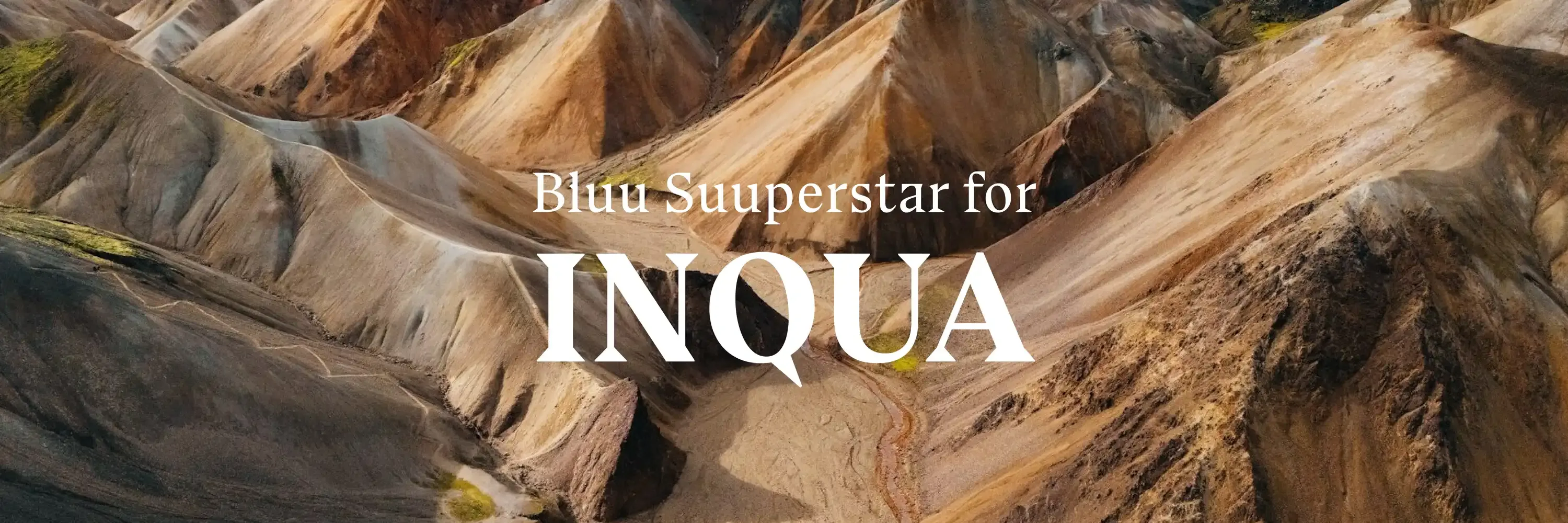
Bluu Suuperstar for INQUA
Introducing Bluu Suuperstar for INQUA
Inqua, the International Union for Quaternary Research, is a global organization at the forefront of Quaternary science—the study of Earth’s environmental changes over the past 2.6 million years. By fostering collaboration and innovation, Inqua bridges the past and present, addressing pressing global issues such as climate change, biodiversity loss, and human adaptation.
To visually represent this mission, Inqua selected the Bluu Suuperstar font. This bold, modern serif typeface is more than just a design choice—it’s a reflection of Inqua’s vision and scientific approach, balancing precision, exploration, and creativity.
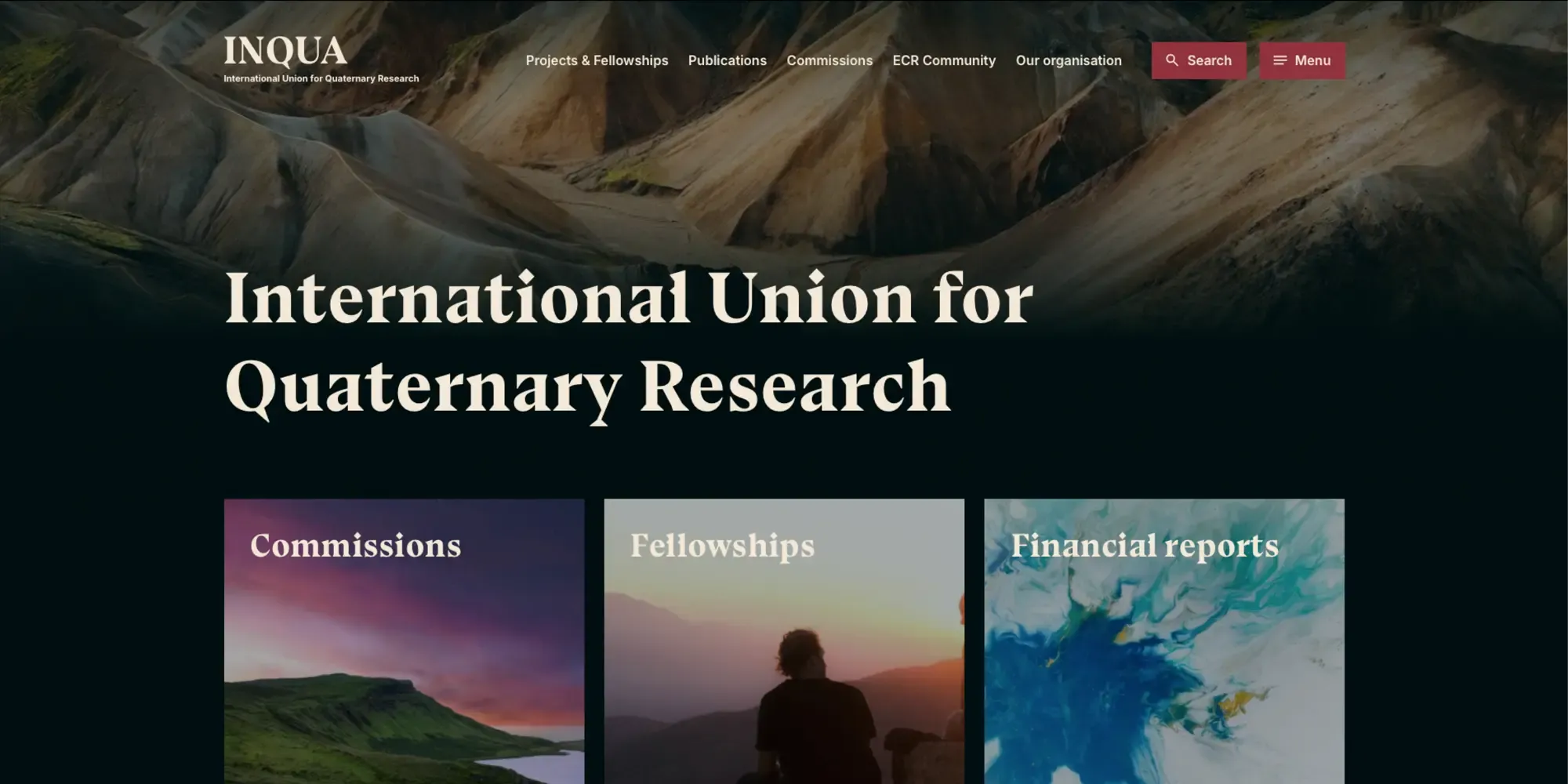
Why Bluu Suuperstar
• Scientific Precision: Bluu Suuperstar’s sharp, angular serifs and high contrast echo the precision required in scientific research. Just as Quaternary science meticulously analyzes layers of Earth’s history, the font’s structured forms convey a sense of accuracy and rigor.
• Dynamic Innovation: The typeface’s dramatic and unconventional details, such as its flared serifs and striking proportions, symbolize Inqua’s role as a trailblazer in science. Bluu Suuperstar communicates the idea of breaking boundaries while remaining grounded in expertise.
• Bridging Tradition and Modernity: With its roots in classical serif design but a distinctly contemporary twist, Bluu Suuperstar mirrors Inqua’s mission of connecting the past with the present. It reflects the organization’s ability to honor Earth’s history while innovating for the future.
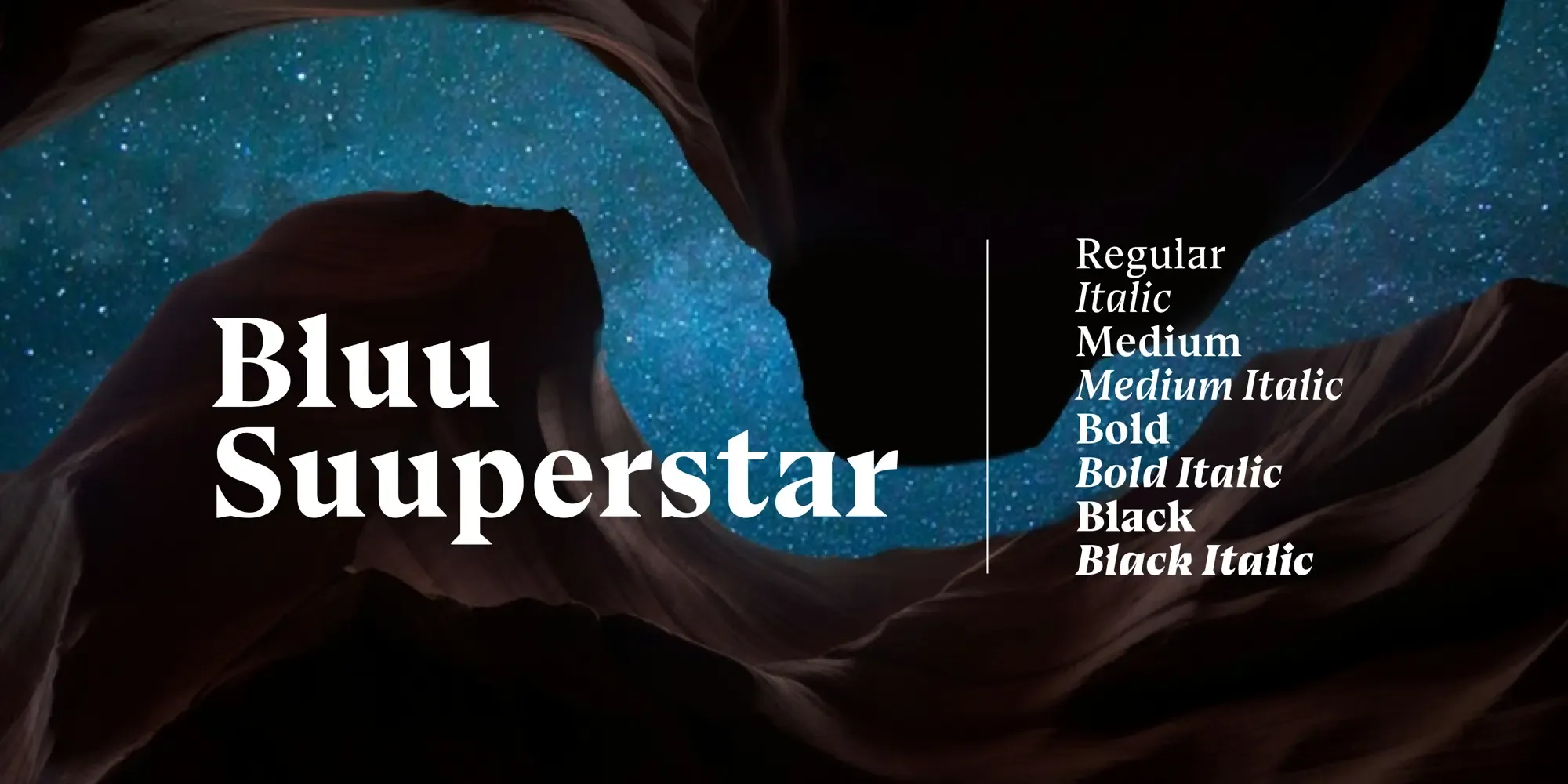
Bluu Suuperstar in Action
• Scientific Precision: Inqua’s logo, crafted with Bluu Suuperstar, becomes a symbol of scientific exploration and innovation. The sharp serifs and high-contrast strokes project authority and confidence, while the font’s modern details keep the design fresh and relevant.
• Dynamic Innovation: Bluu Suuperstar serves as a unifying visual element across all Inqua materials. From conference presentations and scientific journals to their website and promotional campaigns, the font ensures a cohesive and recognizable identity.
• Adaptability Across Formats: The versatility of Bluu Suuperstar allows it to perform consistently across a wide range of applications. Whether it’s used for bold headlines in global conferences, detailed captions in scientific imagery, or digital interfaces, the font’s clarity and impact remain unmatched.
Conclusion
Bluu Suuperstar is more than just a font for Inqua—it’s a visual embodiment of their mission. Its bold and innovative design captures the spirit of scientific inquiry and exploration, while its precise and timeless qualities reflect Inqua’s commitment to advancing knowledge and addressing global challenges. Just as Inqua connects the past and future through science, Bluu Suuperstar bridges tradition and modernity, making it the perfect partner in communicating Inqua’s vision to the world.